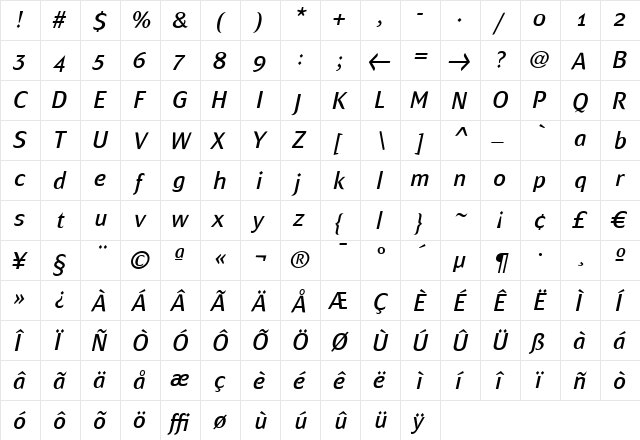
MondialPlus Normal Italic
Design Context for MondialPlus Typeface
MondialPlus is a composed and adaptable typeface that performs quietly and consistently across a wide range of design contexts. The dynamic lean of this cut emphasises speed and emphasis in any layout.
Pro Tip: Try MondialPlus for annotation and caption copy alongside an upright companion — the contrast in angle creates a dynamic but ordered typographic system.